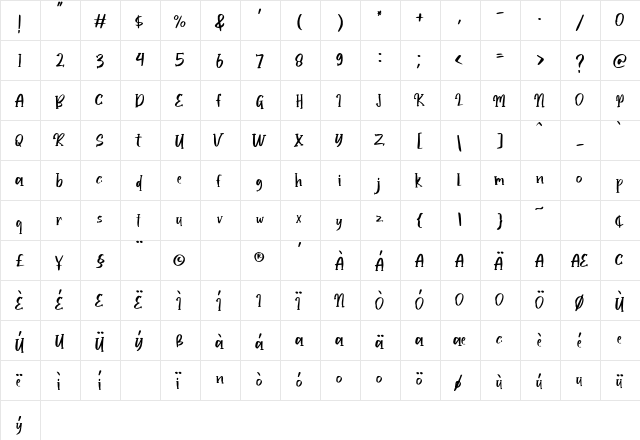
Happy Bright Regular
| Foundry | Hugefonts |
| Designer | Hugefonts |
Design Context for Happy Bright Typeface
Happy Bright is a composed and adaptable typeface that performs quietly and consistently across a wide range of design contexts.